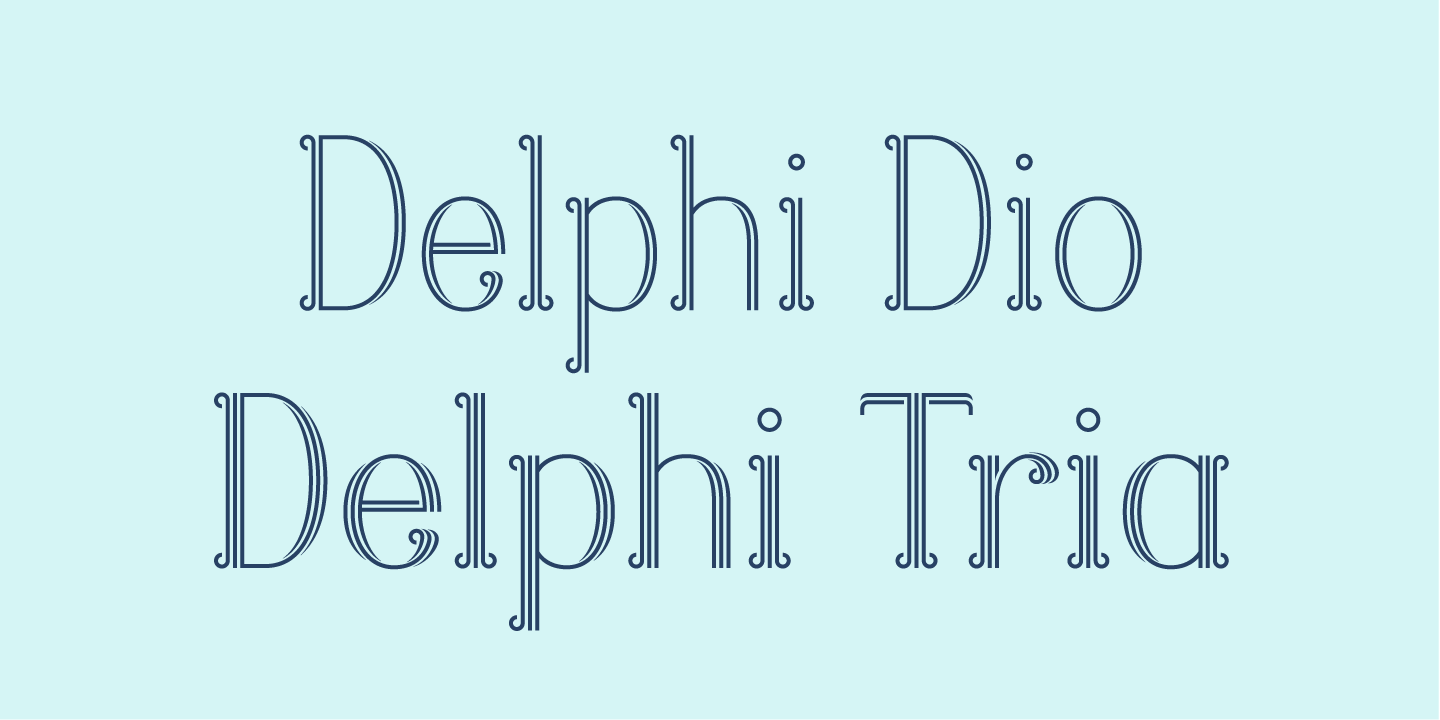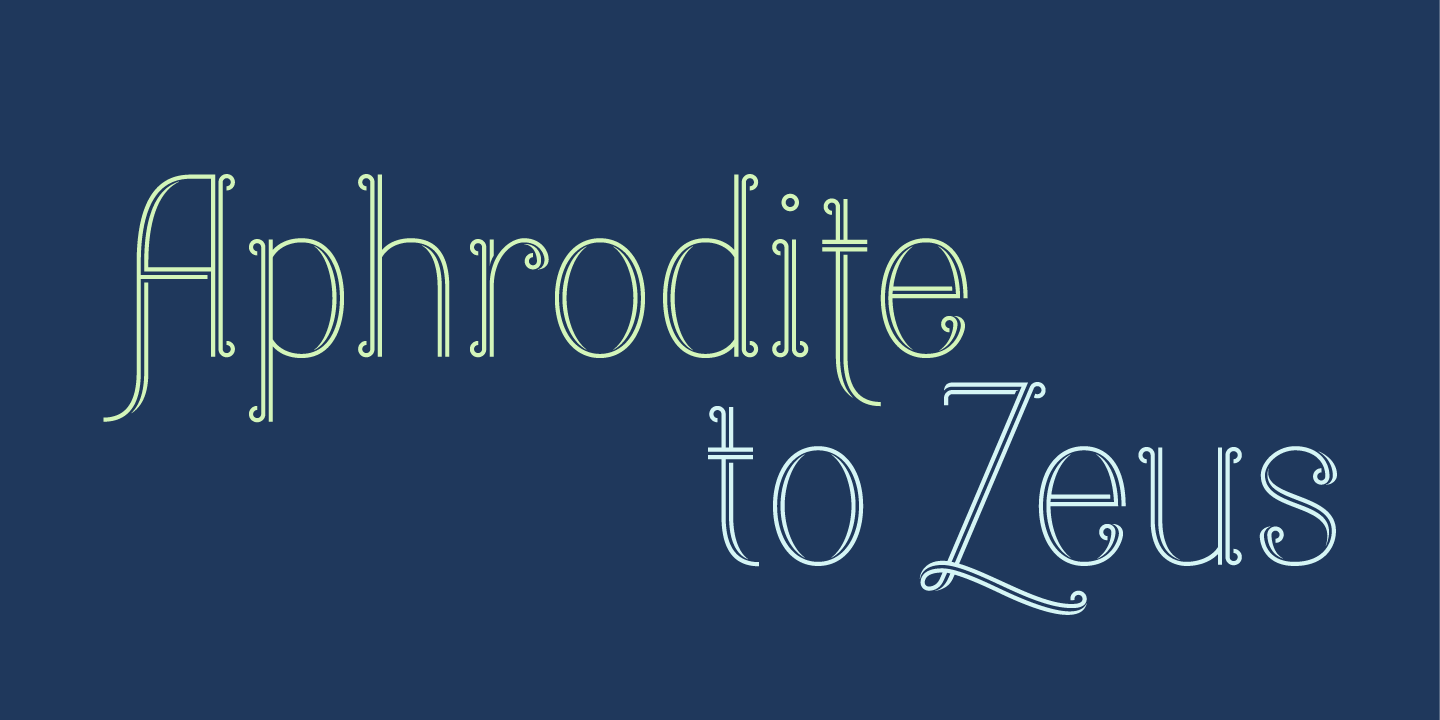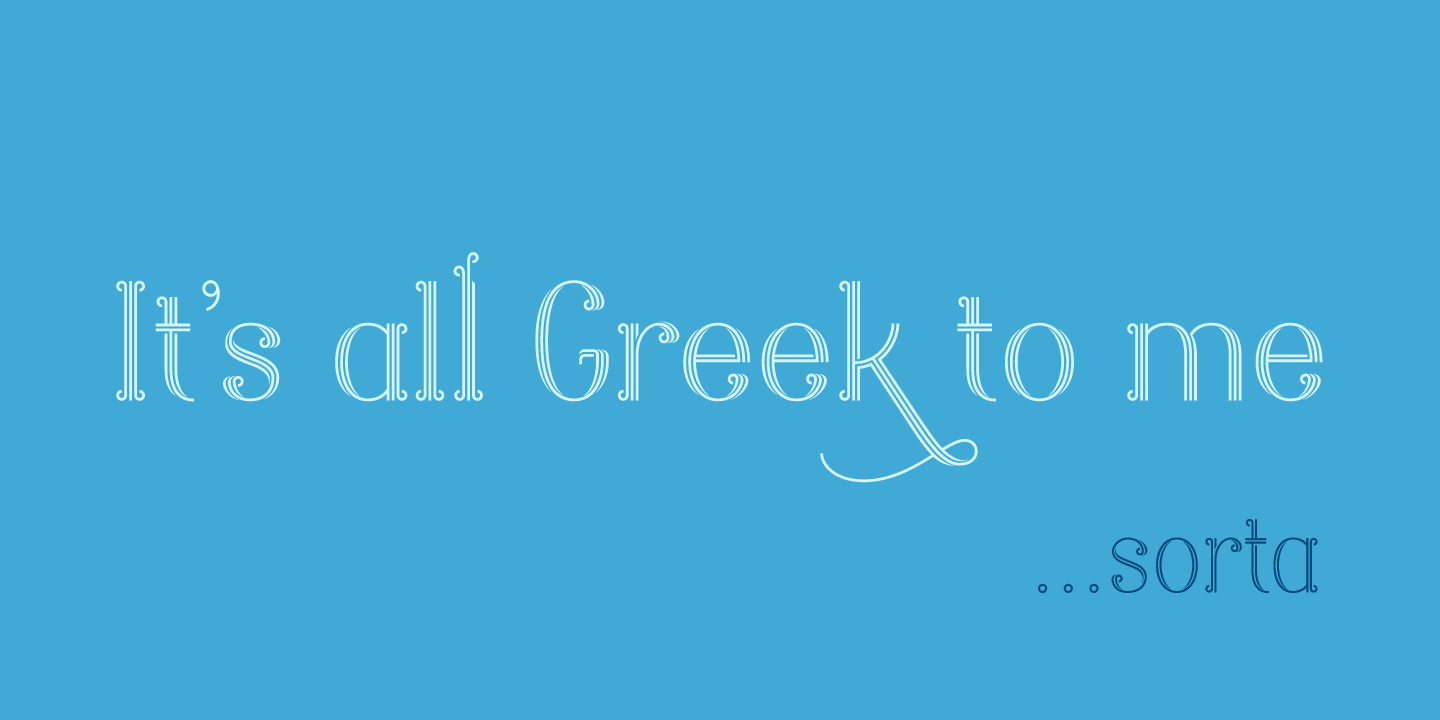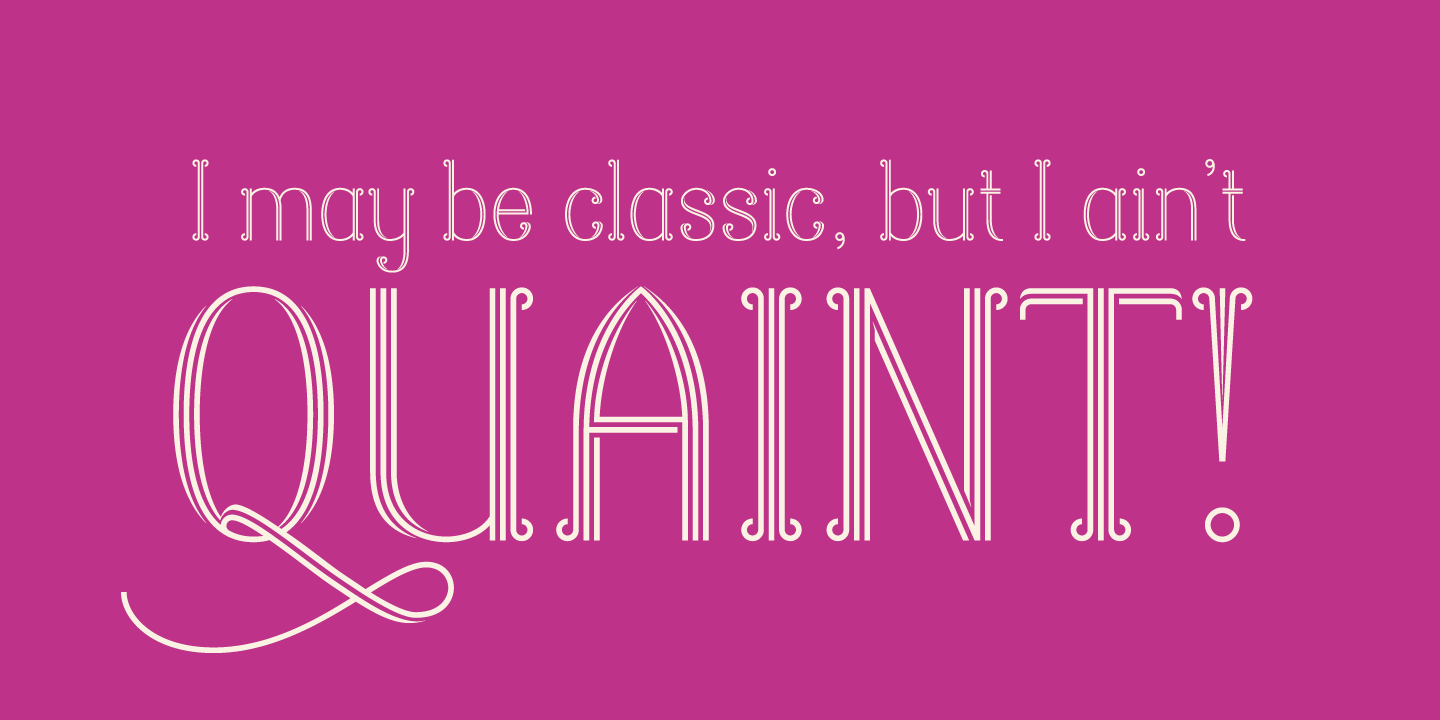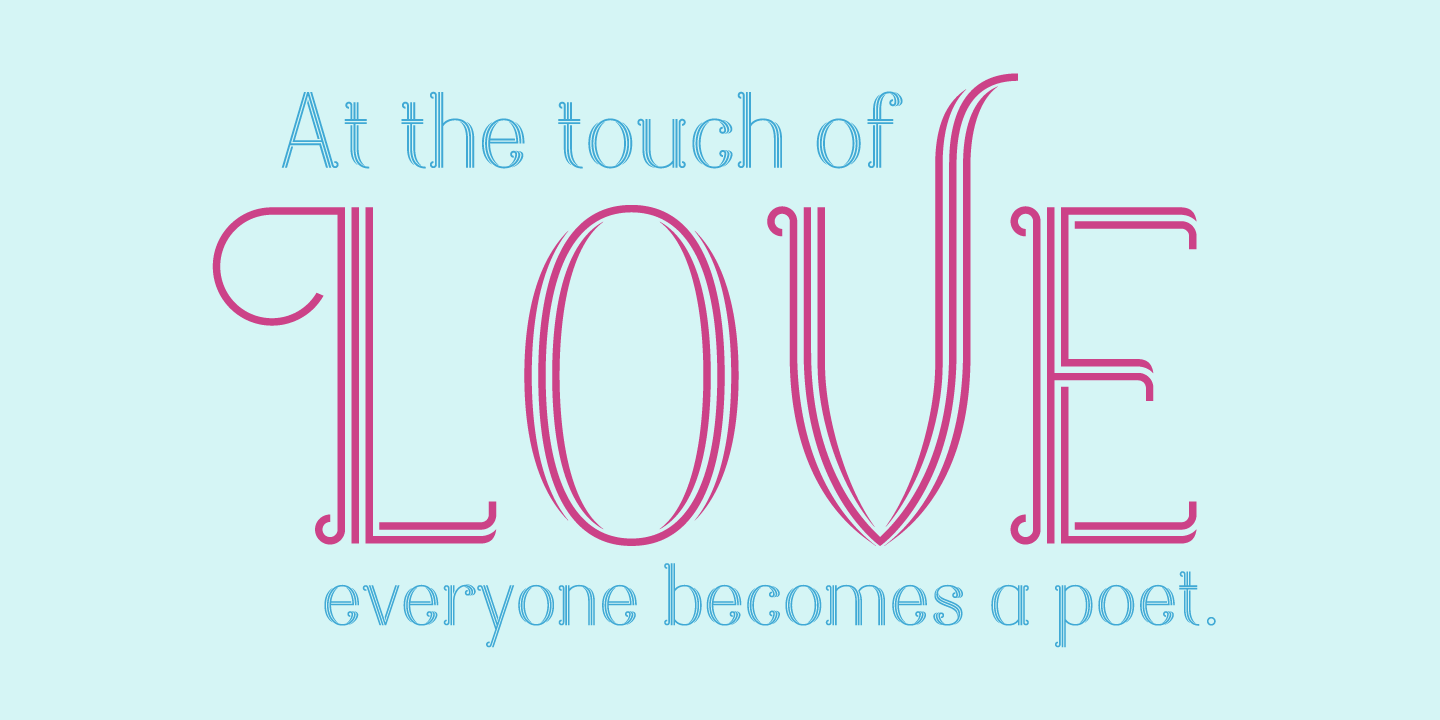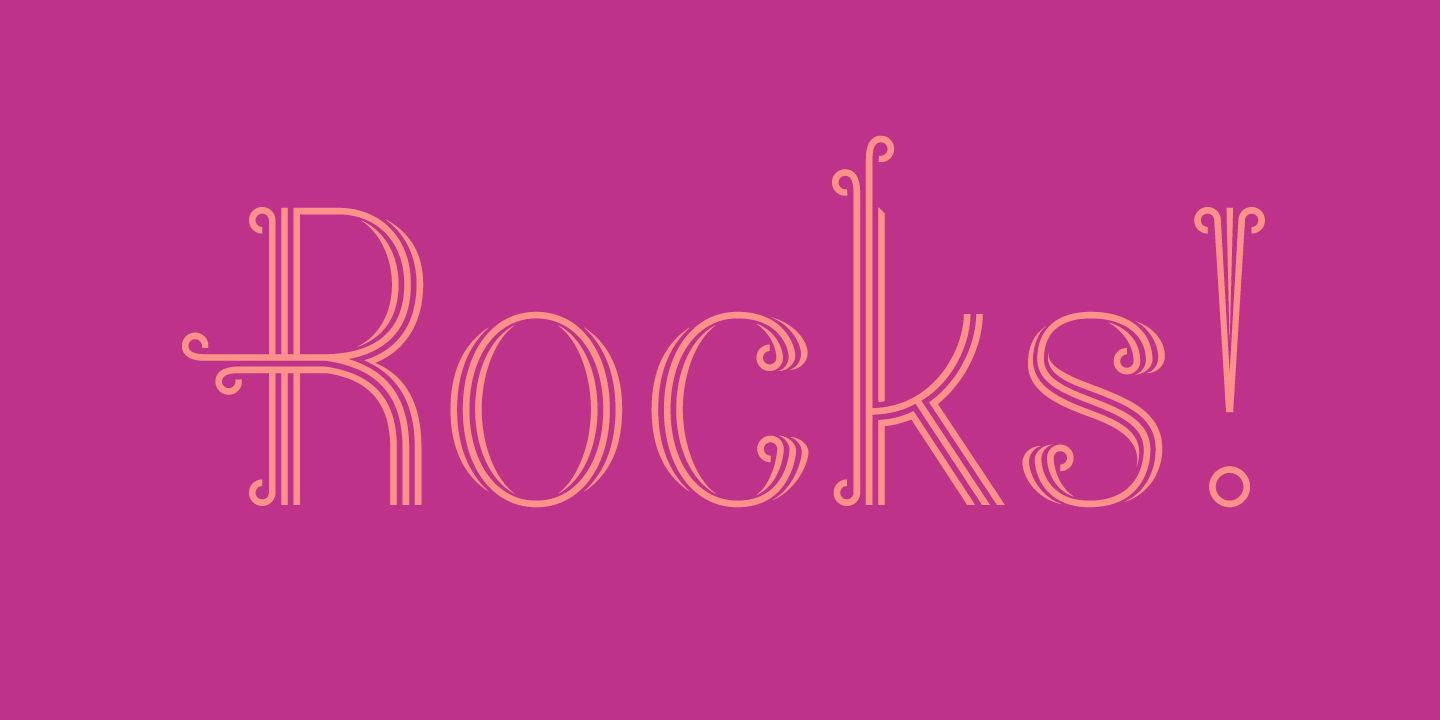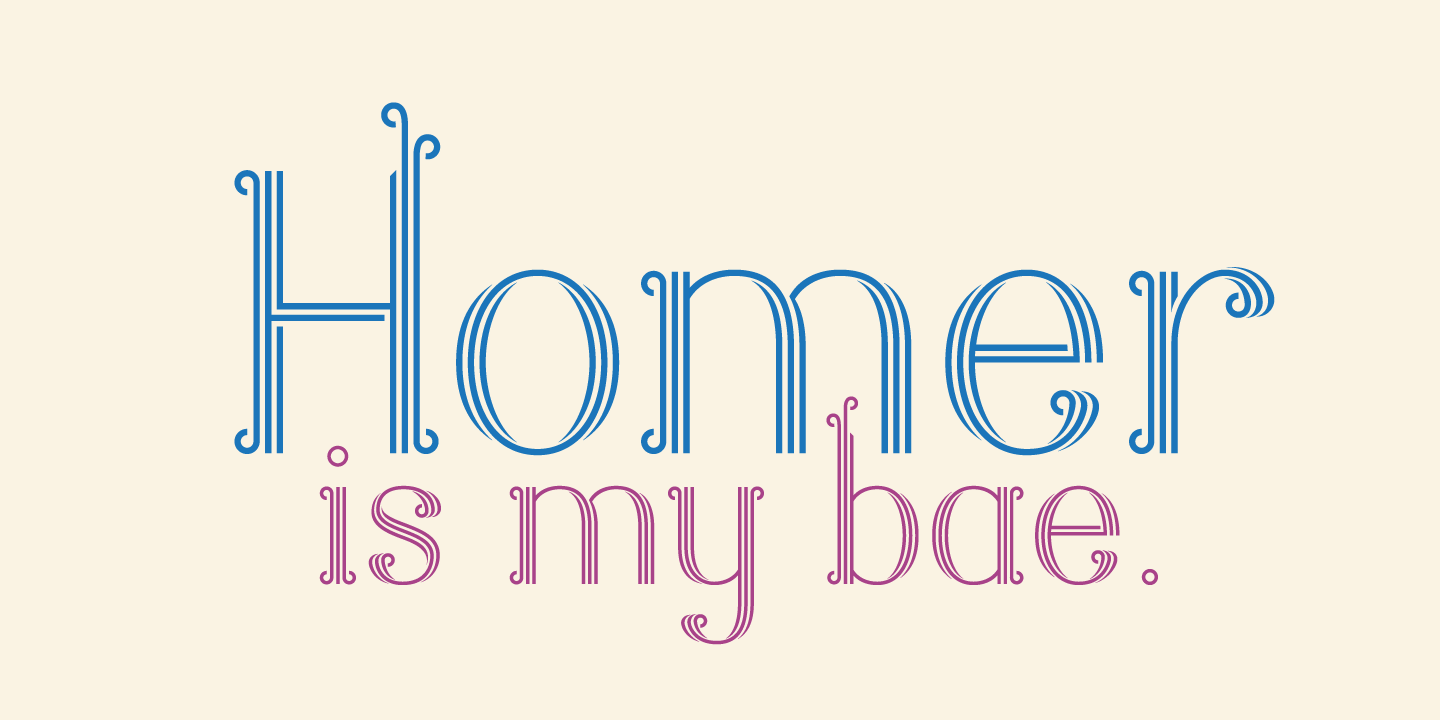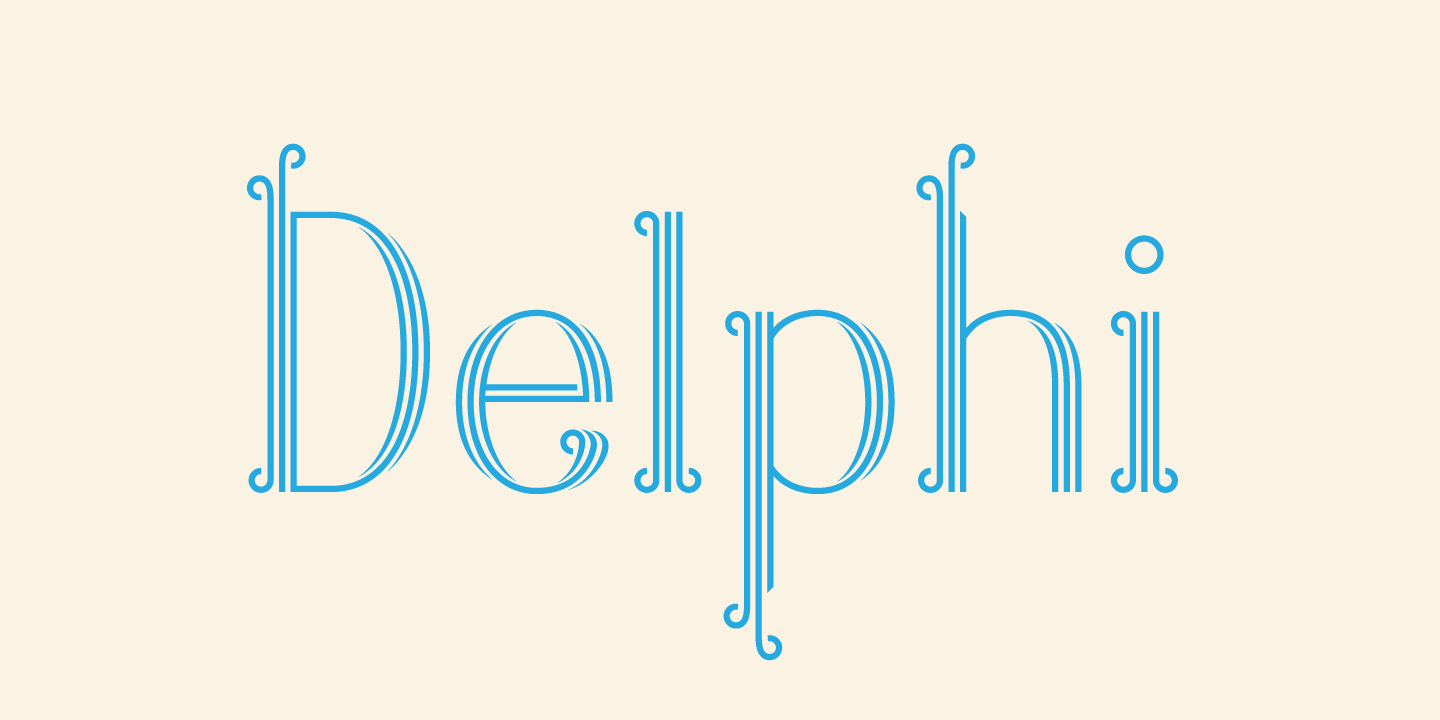
Delphi
About Delphi
Delphi grew from a logotype Lily Feinberg produced using Greek-column-inspired letterforms. As that concept expanded to include more and more letters, the typeface had its beginnings. Intertwined, kinetic, and deliberate, Delphi carves itself onto the…